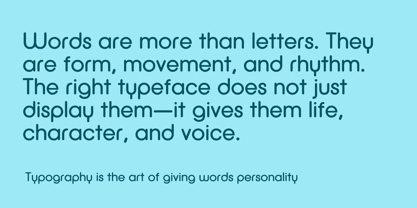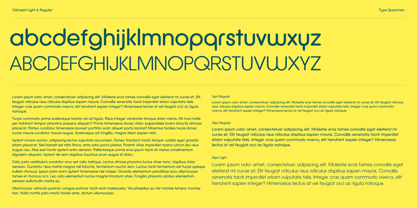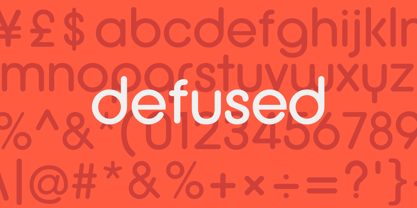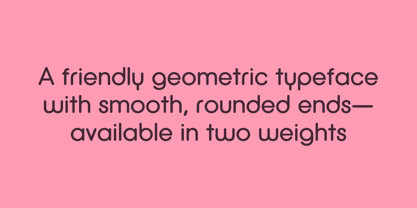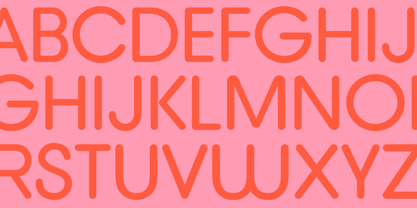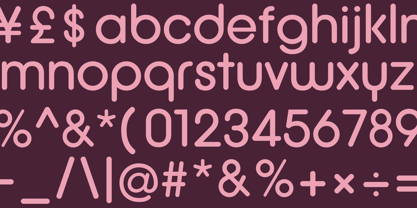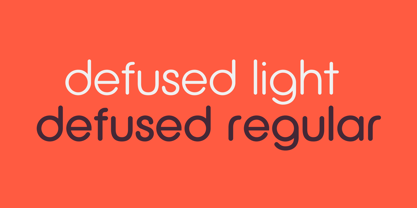
Defused
von Geoff Biskupek
Defused – A Minimal, Contemporary Rounded Geometric Typeface
Defused is a friendly, minimal, and contemporary geometric typeface with smooth, rounded ends, designed to bring warmth, clarity, and balance to any design project. Its precise yet approachable letterforms make it a versatile choice for branding, UI/UX design, editorial layouts, packaging, and beyond.
With a strong geometric foundation, Defused OT blends mathematical precision with a soft, human touch—perfect for projects that need to feel modern, sleek, and inviting.
What Makes Defused Unique?
✔ Fully rounded ends – Smooth curves create a polished, contemporary look.
✔ Minimal yet bold – A blend of structure, clarity, and approachability.
✔ Two weights – Available in Light & Regular for flexible design applications.
✔ Optimised for screens & print – Carefully adjusted spacing, hinting, and kerning for flawless readability.
✔ Multi-language support – Extended character set covering multiple languages and symbols.
Über Geoff Biskupek
Based in the UK, Geoff Biskupek is a digital and type designer with a record of successful collaborations with international brands. His expertise covers the full range of the design process, from initial conceptual sketches to the development of final digital typefaces. Specialising in both the artistic and technical aspects of type design, Geoff has gained industry recognition for his ability to create work that effectively balances aesthetic considerations with functional requirements.